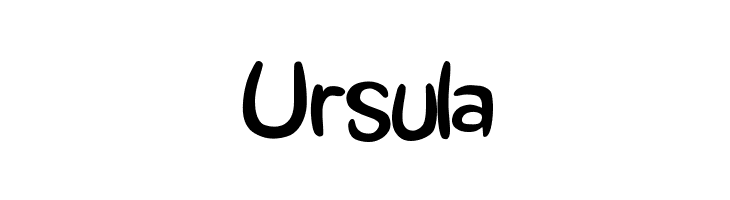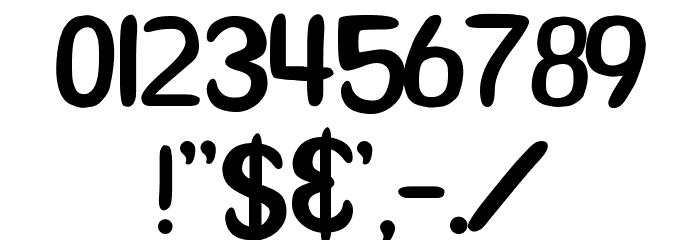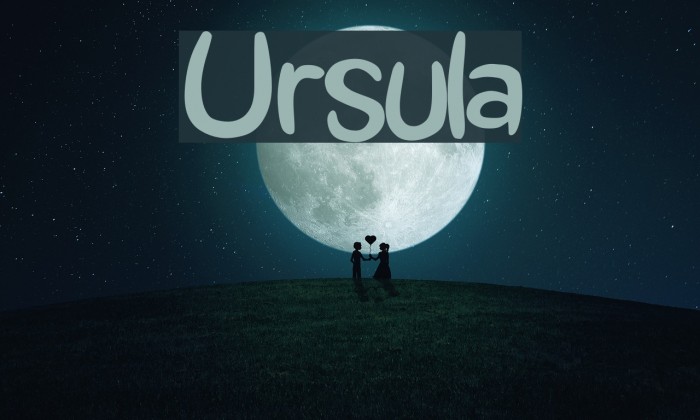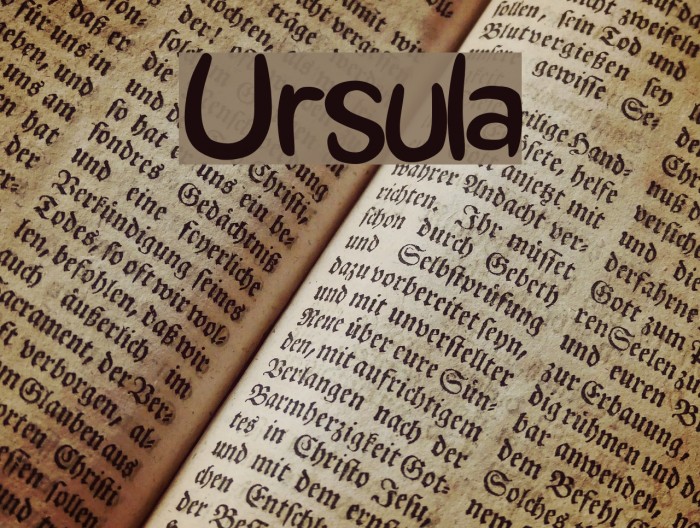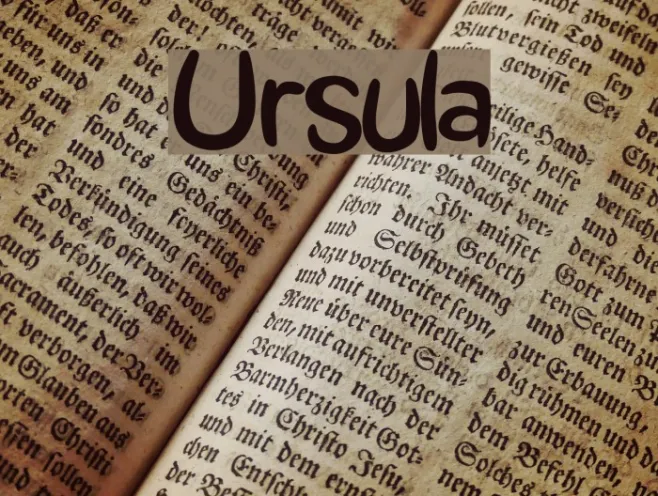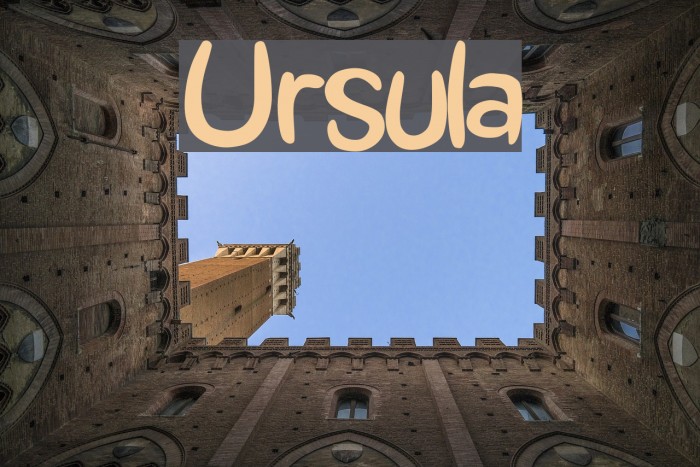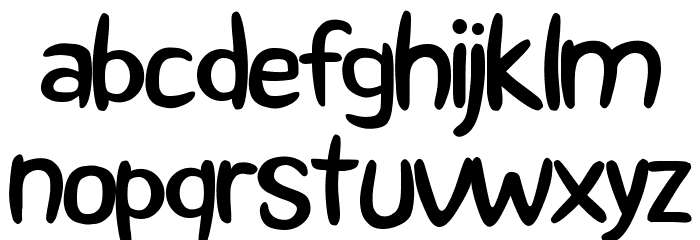
Ursula Font
This playful and bold font features rounded edges and a slightly irregular, hand-drawn appearance. The uppercase letters are tall and slightly narrow, giving a sense of height and energy. The lowercase letters maintain a consistent style with a friendly and approachable look, characterized by smooth curves and a casual feel. Numbers are clear and easy to read, with a uniform thickness that matches the letters. Special characters are creatively designed, maintaining the overall whimsical style. This font is ideal for projects that require a fun and informal touch, such as children's books, playful branding, or creative posters.
A playful, bold font with rounded edges and a hand-drawn appearance.